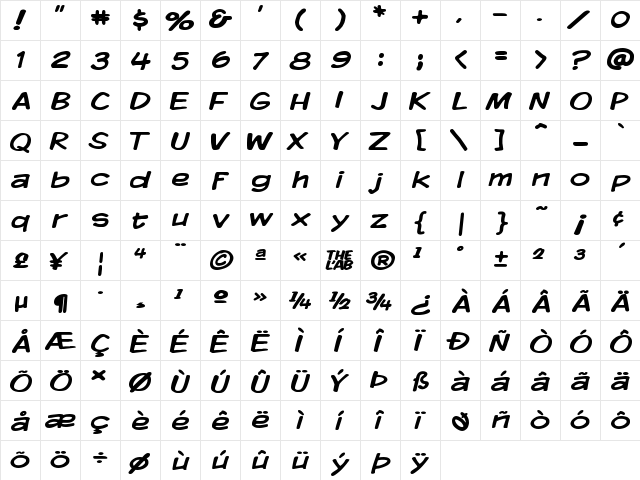
Komika Display Wide Regular
| Designer | WolfBainX |
Design Context for Komika Display Wide Typeface
Komika Display Wide is built around its visual character rather than neutral utility — its distinctive forms are designed to make an impression at display sizes.
Font Pairing: Pair with a clean neutral sans-serif for body copy to let Komika Display Wide's character lead without overwhelming the composition.
Pro Tip: Treat Komika Display Wide as the centrepiece of your typographic hierarchy. One strong heading set in a decorative face can carry an entire layout.